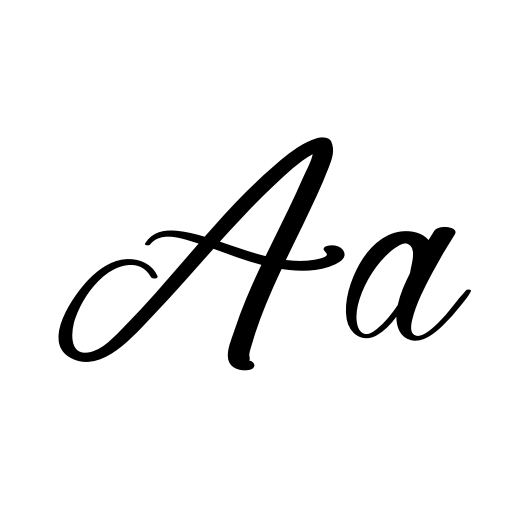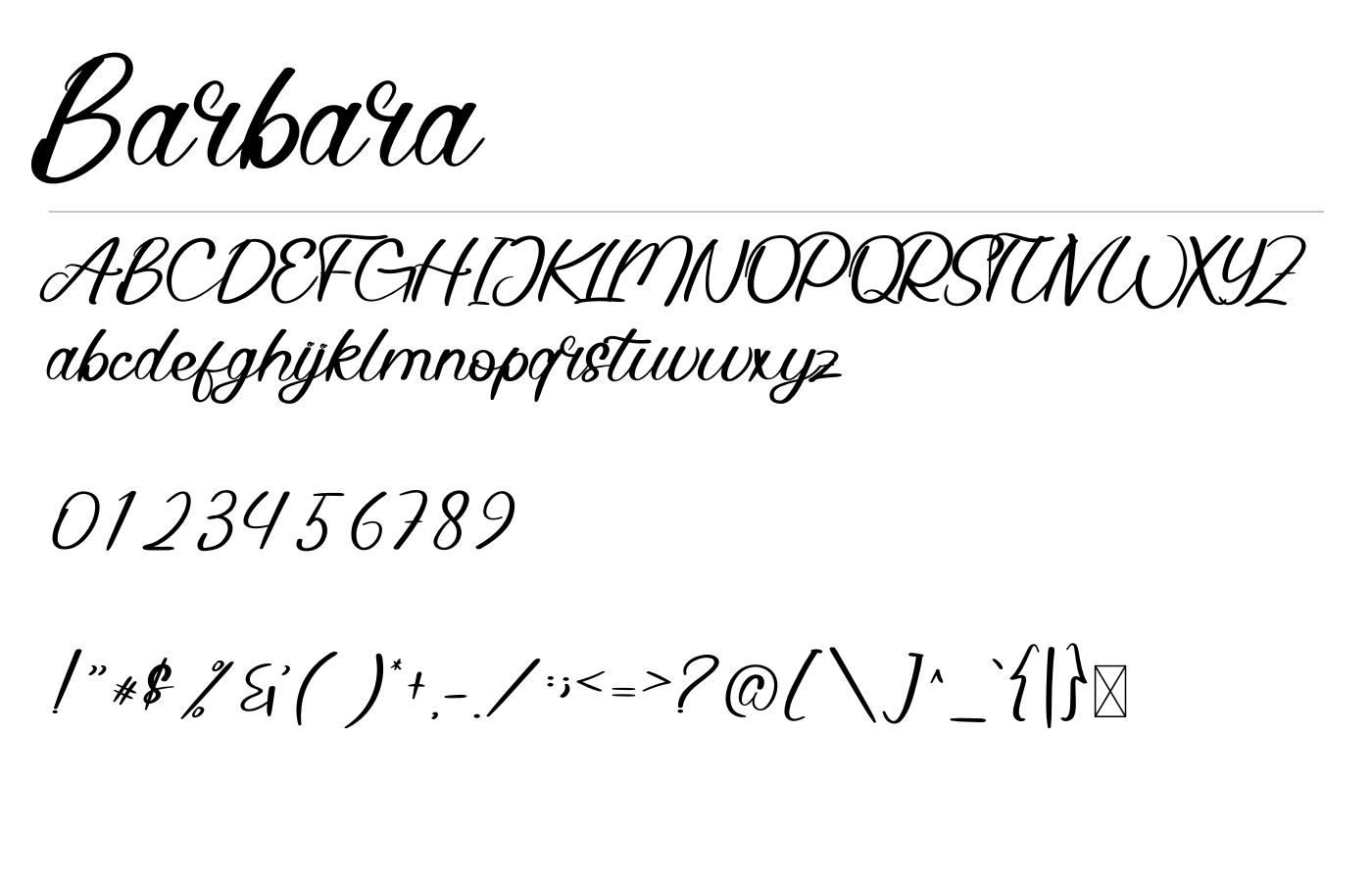
Barbara Font is an elegant and flowing script typeface with a handwritten feel, featuring smooth, fluid strokes and moderate contrast. Its refined, slightly playful character makes it ideal for invitations, branding, and any design seeking a graceful and personal touch. This font works beautifully in logos, headlines, and decorative text where a sophisticated yet approachable style is desired.
Barbara Font